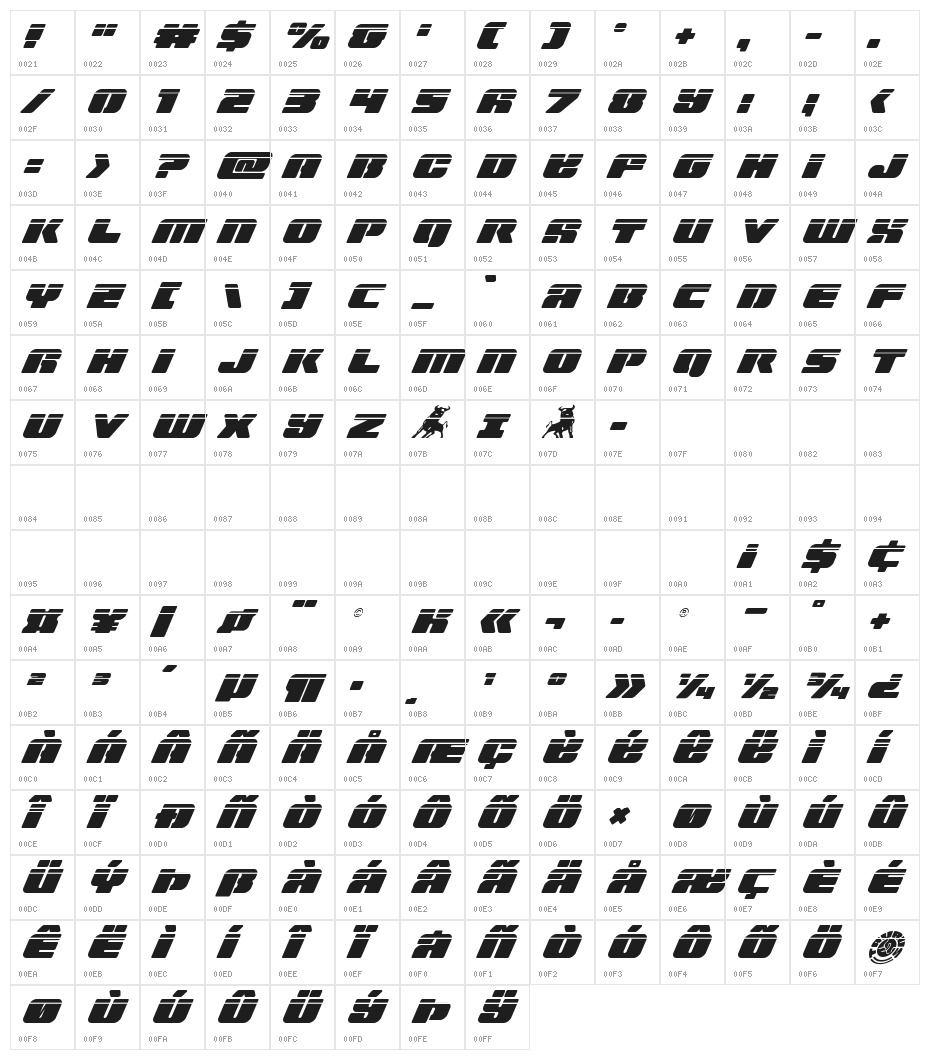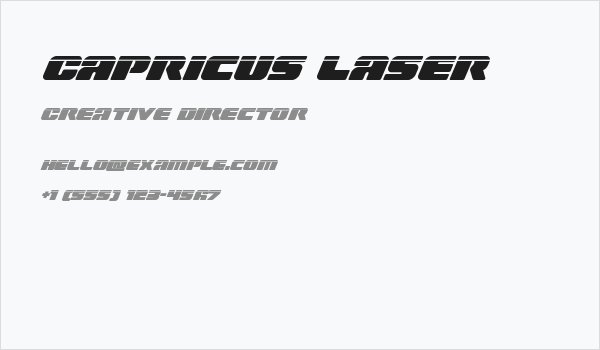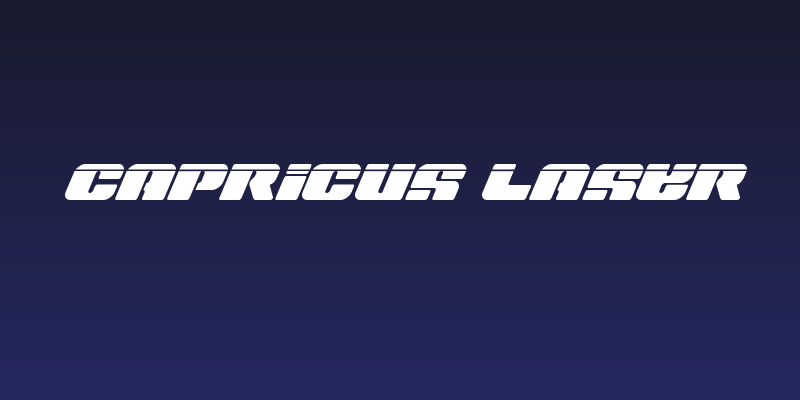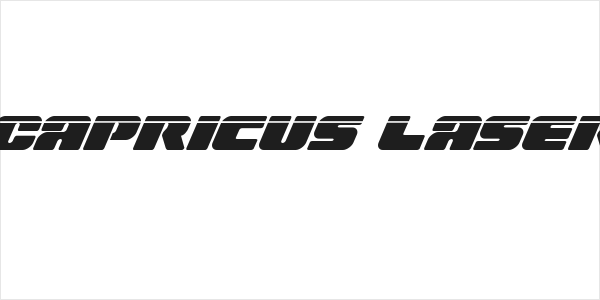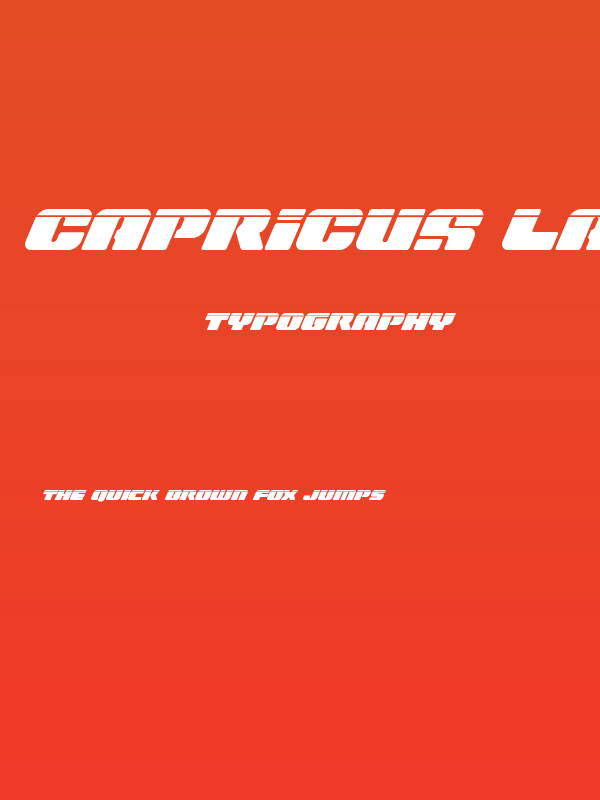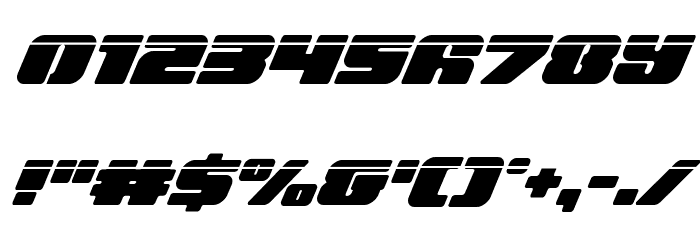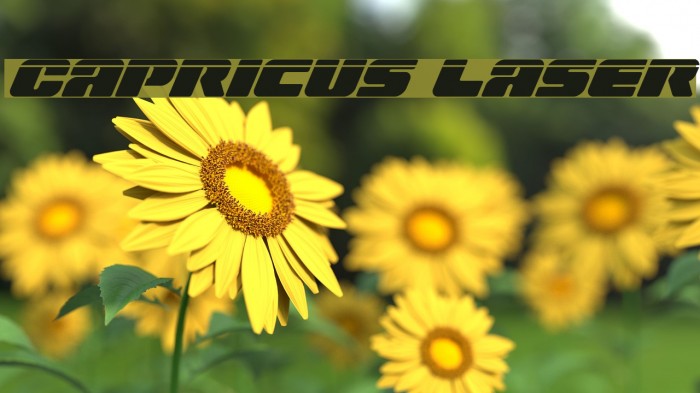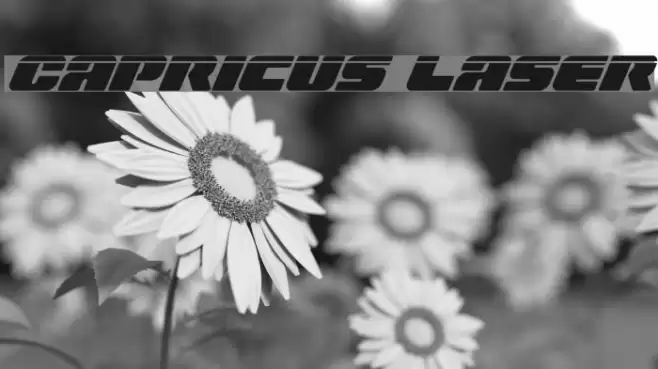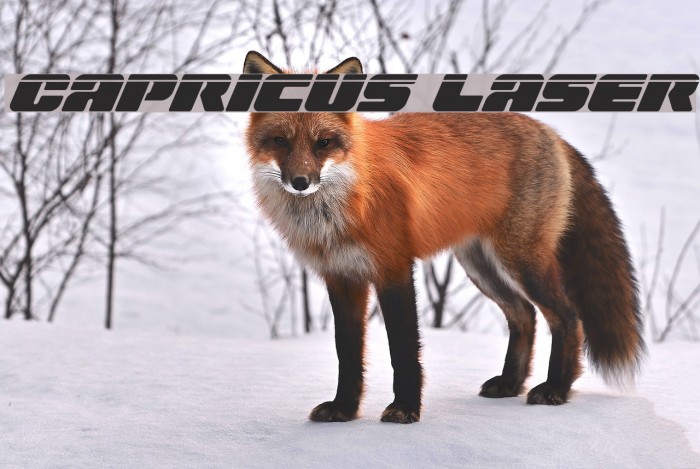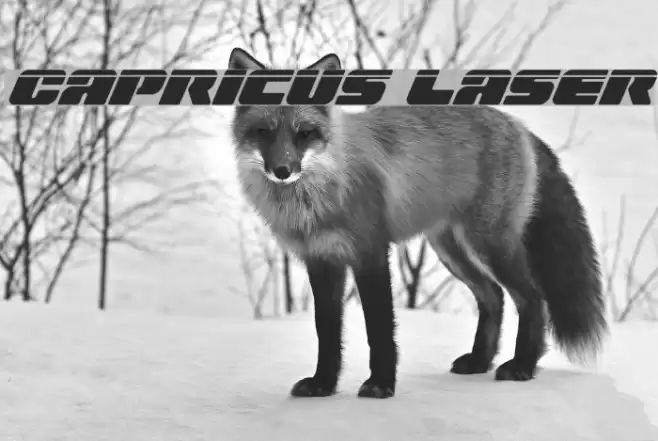
Capricus Laser Font
Capricus Laser Description
This font exhibits a futuristic and bold design, characterized by its sharp angles and geometric shapes. The letters are heavily stylized with a distinct slant, giving a sense of motion and speed. The uppercase and lowercase characters maintain a consistent style, with the lowercase letters mirroring the uppercase in form and structure. The numerals and special characters are designed to match the angular and dynamic aesthetic, making them stand out with their unique forms. The overall appearance is sleek and modern, suitable for projects that require a strong visual impact.
| Proposed Projects | Ideal for sci-fi themed designs, video game titles, technology branding, and futuristic posters. |